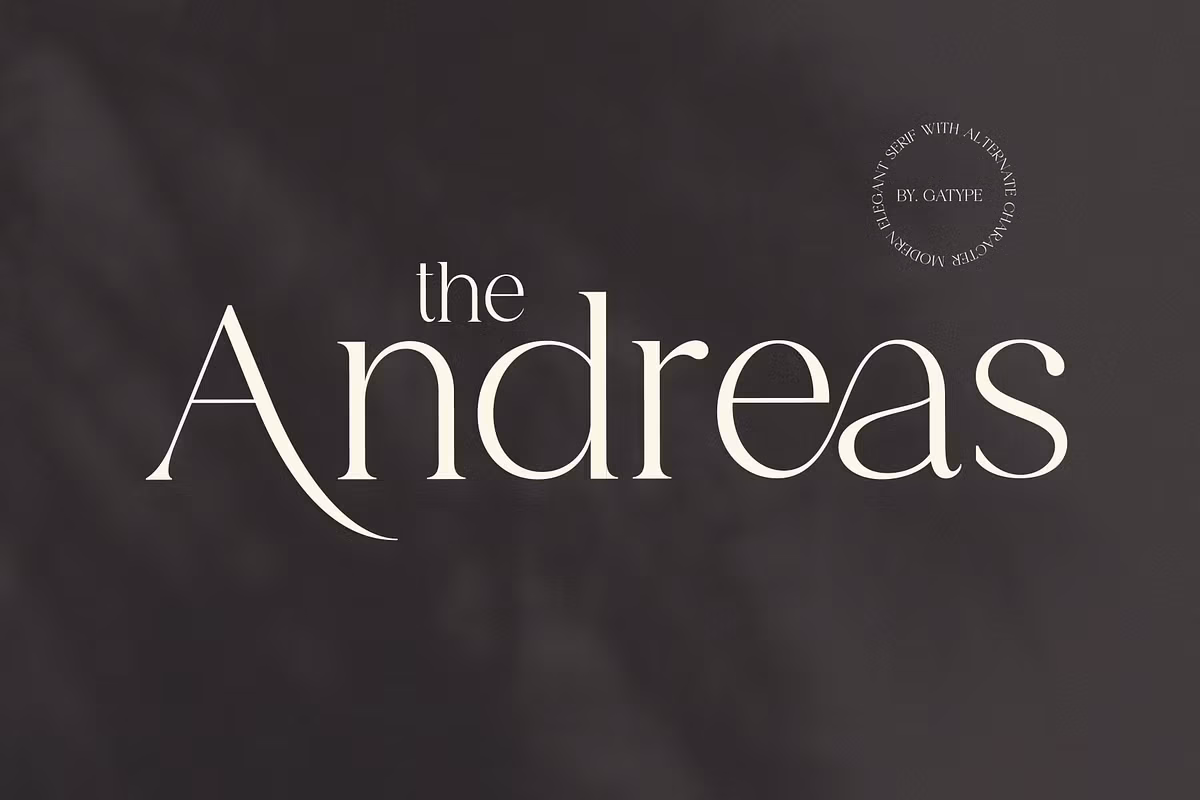
Andreas Font Free Download is a modern and stylish typeface that blends clean lines with a creative edge, making it a great choice for branding, posters, album covers, and editorial layouts. With its bold personality and sleek letterforms, Andreas brings a sense of confidence and clarity to any design.
Whether you're working on digital content, marketing materials, or logo designs, Andreas delivers strong visual impact while remaining highly readable. The font is perfect for making statements with minimal effort—just type and watch your design stand out.
Designed for versatility, it works well in both headline and subhead applications. It’s a must-have for creatives looking to add a modern, trendy typeface to their collection.